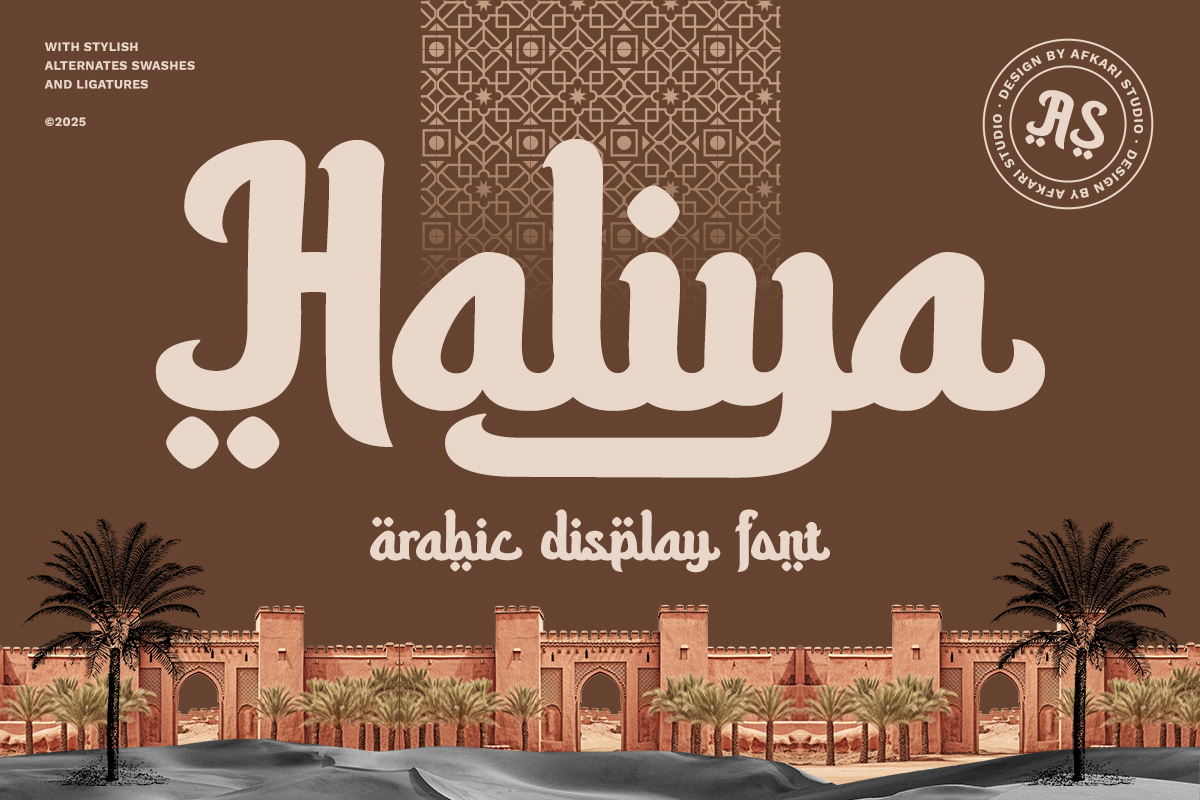
Haliya – Arabic Font Style Typeface Font
Designed by Afkari Studio
About Haliya – Arabic Font Style Typeface
Haliya is an elegant Arabic-style typeface designed to bring the beauty of traditional Arabic calligraphy into modern design. With its fluid curves, graceful strokes, and intricate details, this font is perfect for branding, editorial design, packaging, and Islamic-themed projects.
Haliya – Arabic Font Style Typeface